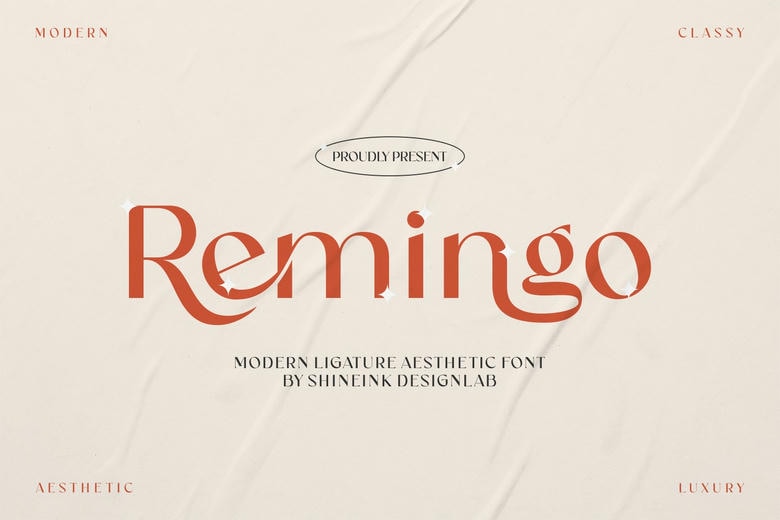
Remingo Font
Remingo is a modern and aesthetic sans-serif typeface that offers a combination of simplicity and style. Its clean, minimalist letters are meant to be readable and simple and thus perfect for digital as well as print materials. It is also a widely used product which can be used in a variety of applications because of its sleek and elegant look which can give any design project the added touch of modernity.
Remingo Sans Serif Font